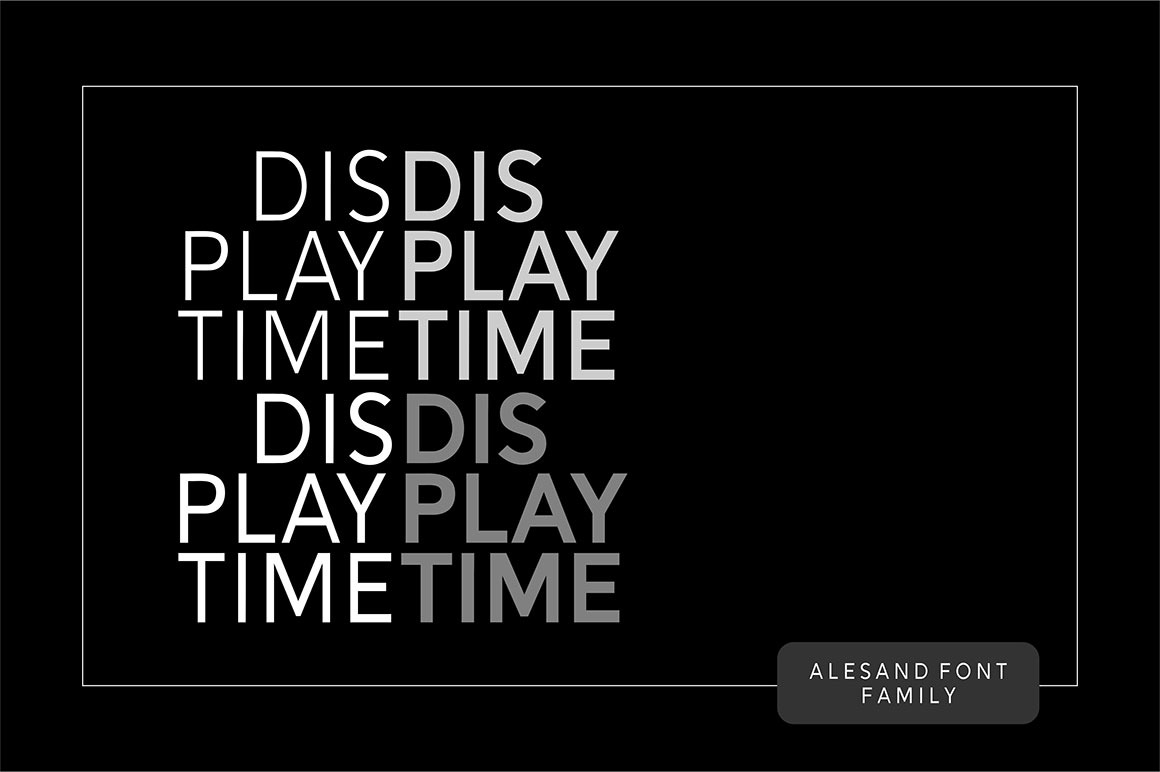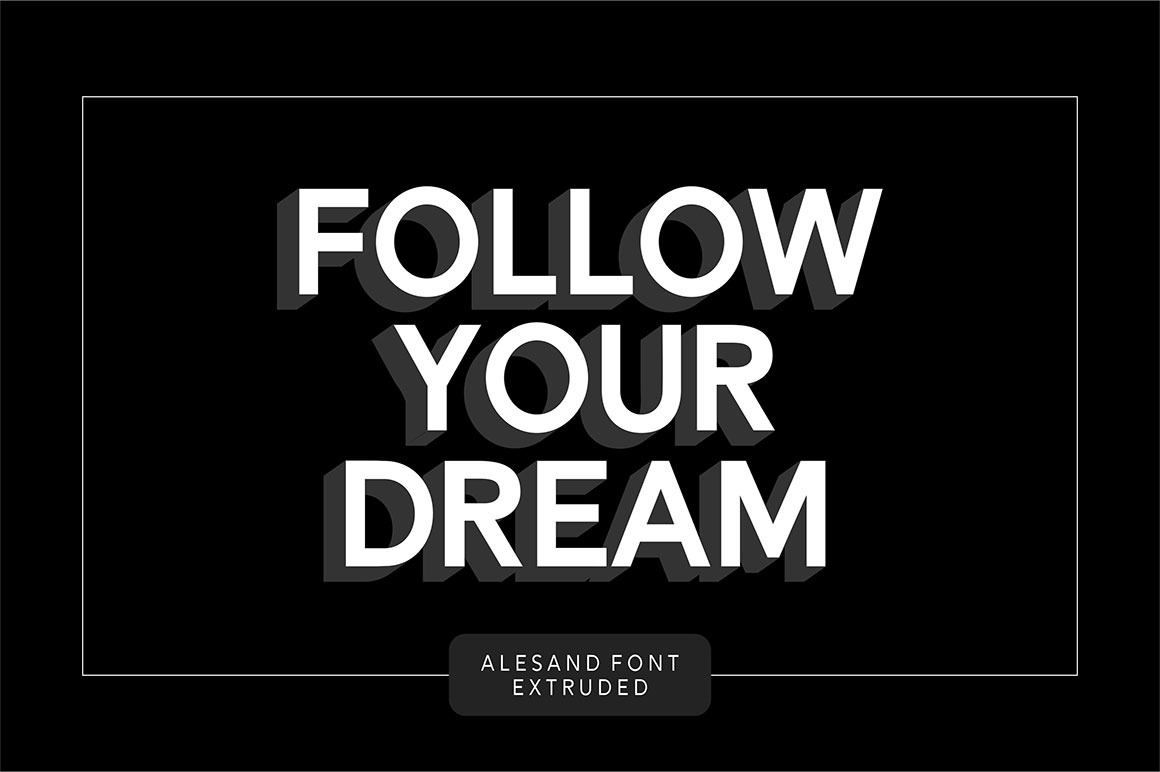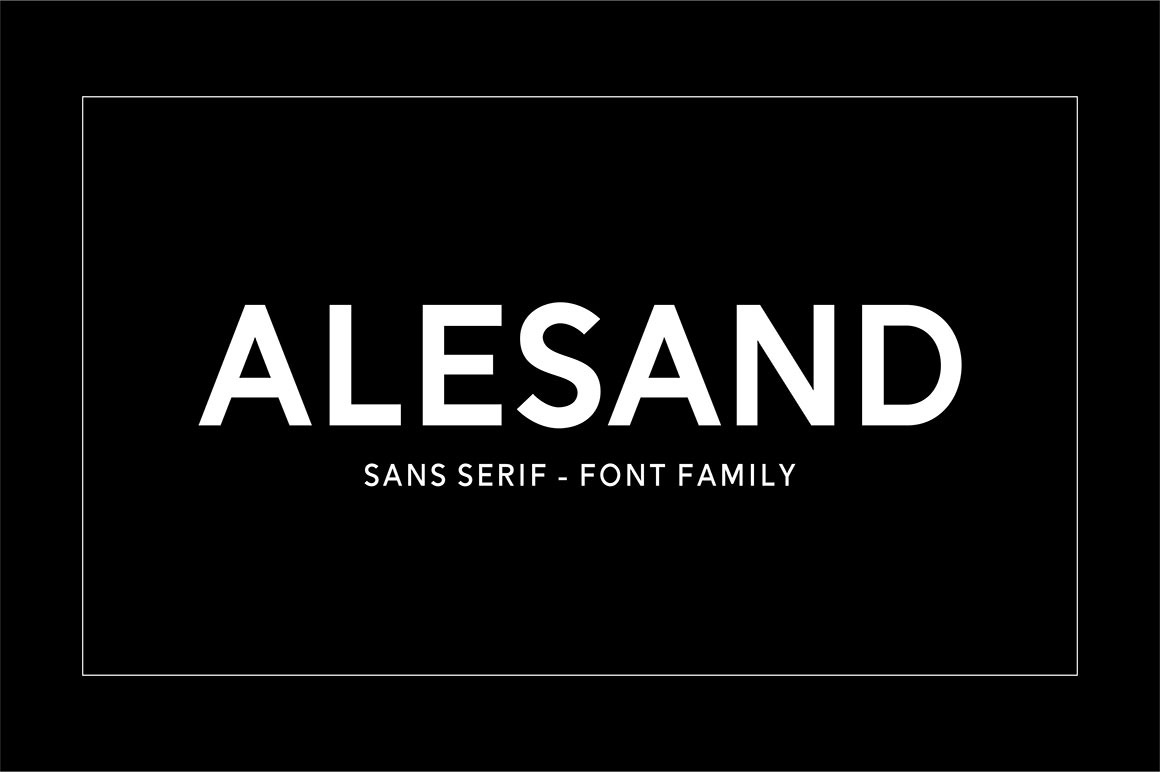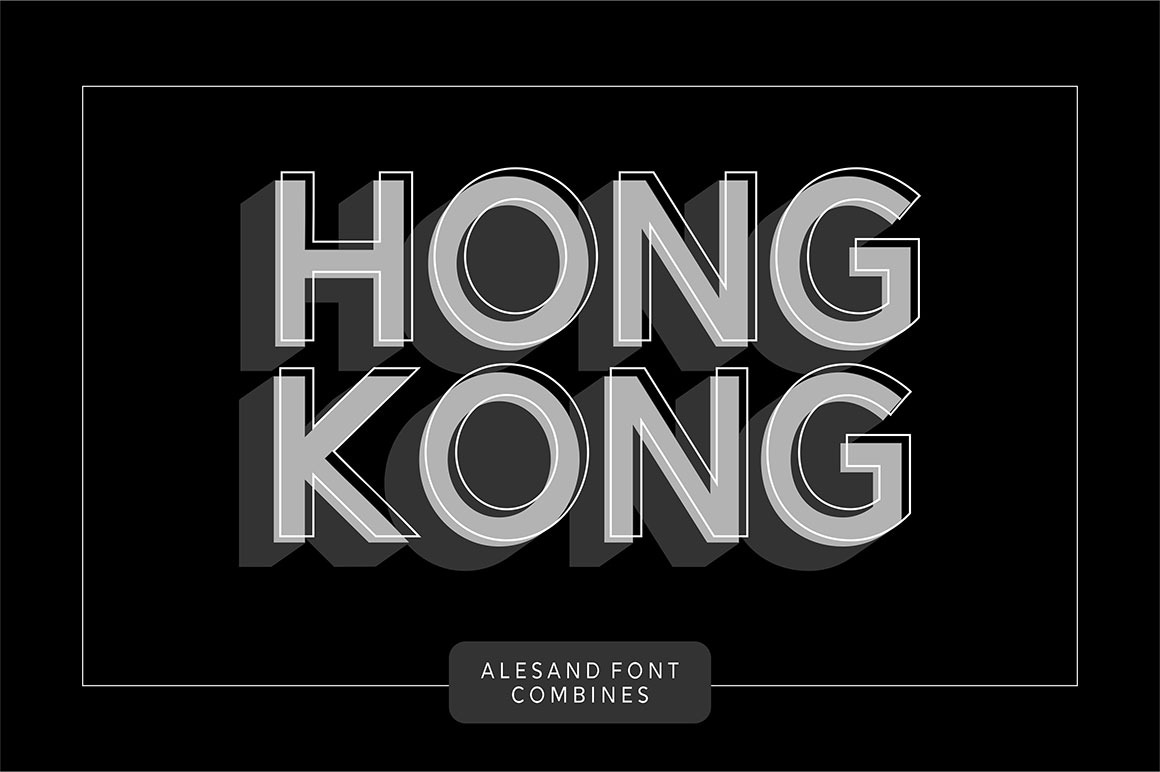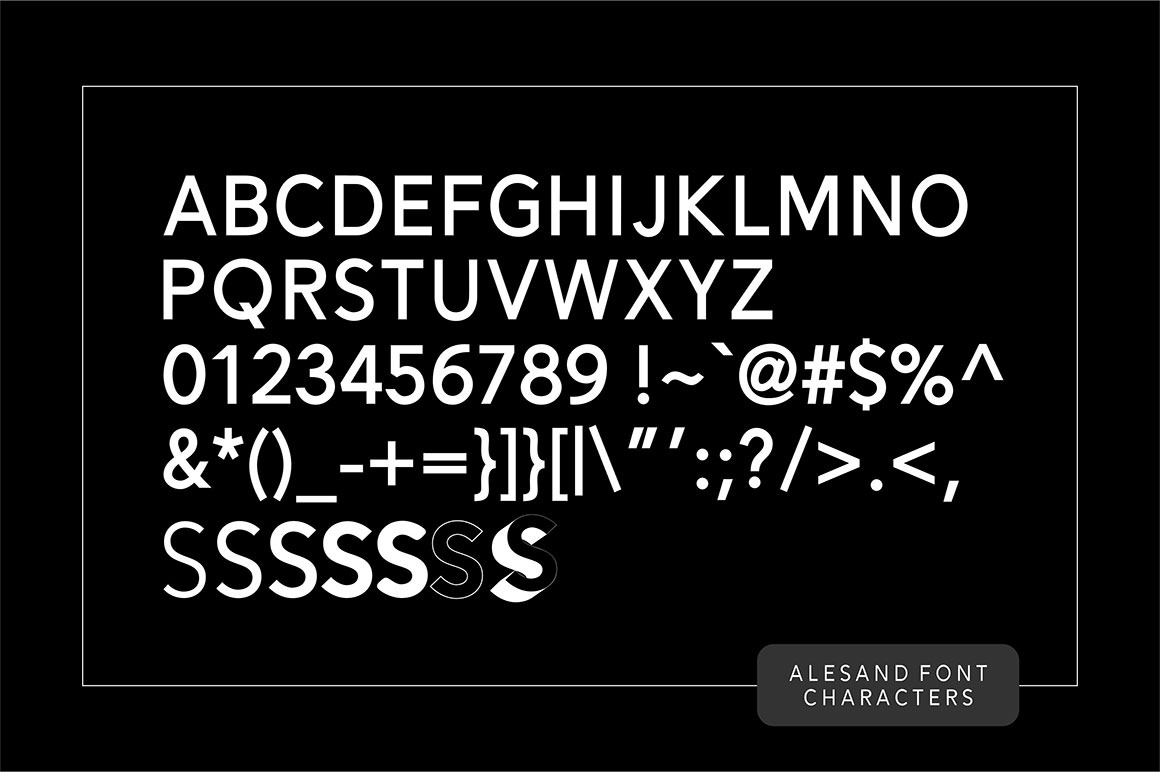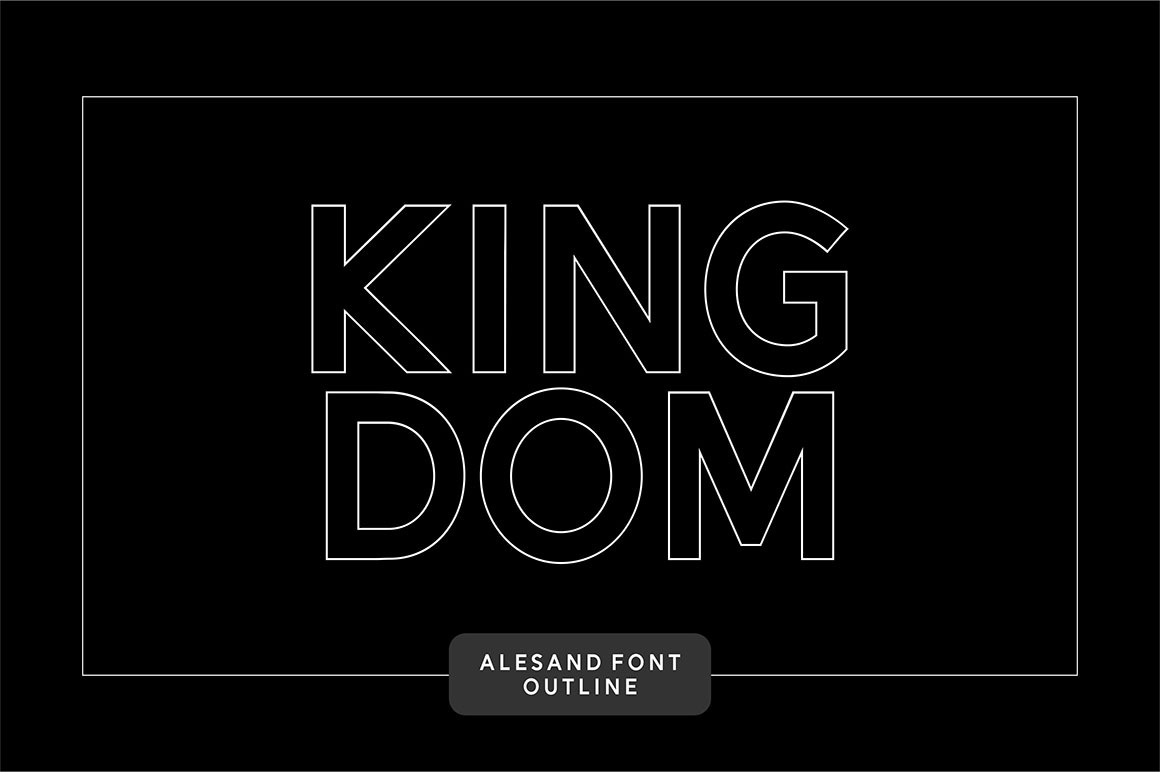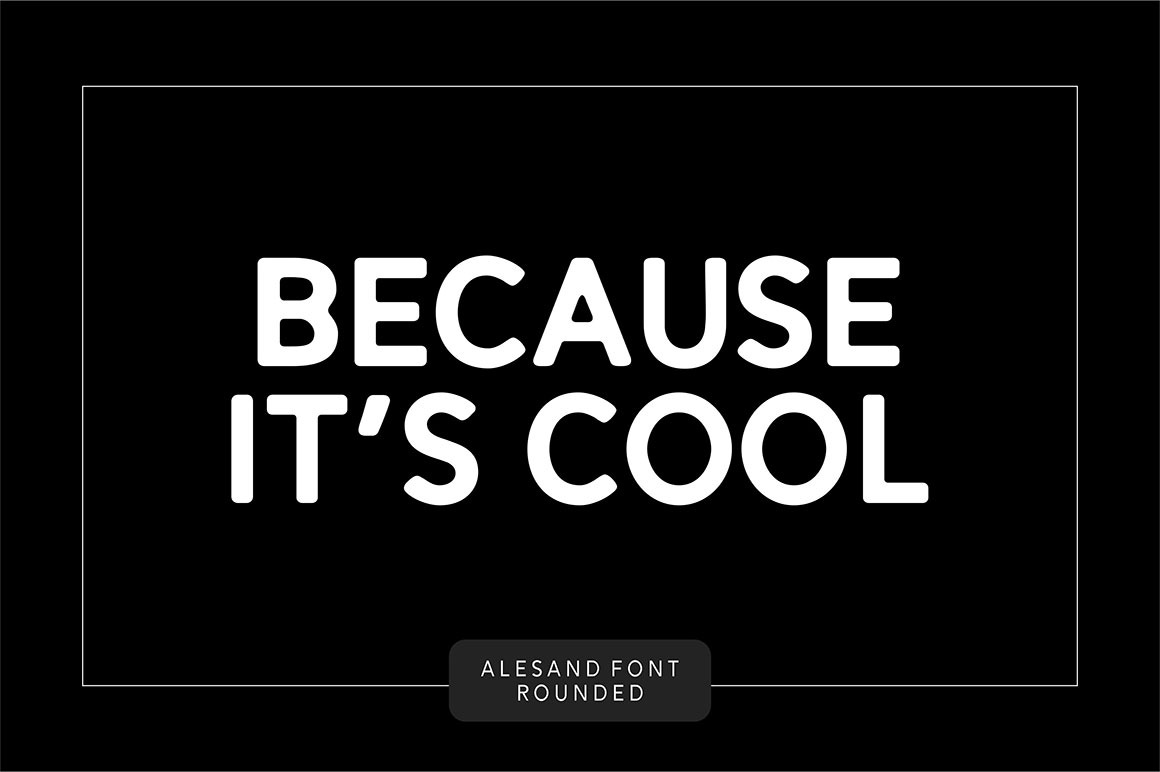
Alesand A new contemporary font family designed with balance and versatility. The addition with outline and extrude font styles, makes it very simple to coat these fonts together perfectly. Simply duplicate the "Extra Bold" layer and change the setting to "Outline, Extrude", and the type will be automatically offset for you! Includes: - Seven font files (Light, Regular, Bold, Extra Bold, Rounded, Extrude and Outline) - Uppercase Letters - Numbers + Punctuation And supports international communication extending to Western languages. Perfect for displays, headers, invitations, save the dates, weddings, brand creation, graphic design and so much more, Alesand will become a playful staple in your font library! | Alesand 7 Fonts | Solidtype